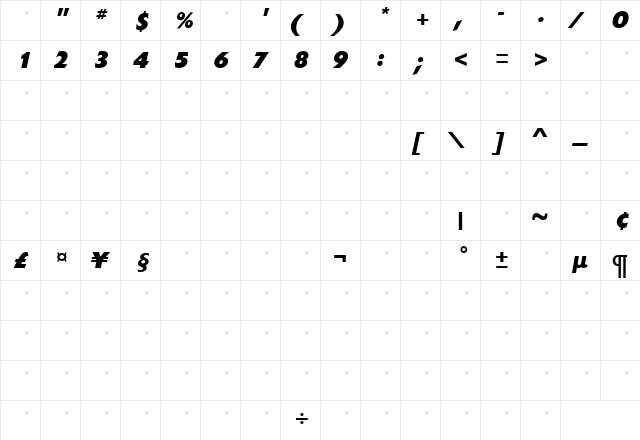
ExtensionExtraBoldItalicTab Roman Font Preview
Design Context for ExtensionExtraBoldItalicTab Typeface
ExtensionExtraBoldItalicTab offers clean, dependable letterforms without strong stylistic allegiance, making it a practical choice for designers who need flexibility. The slanted form adds forward momentum and visual energy. Its bold stroke weight gives it real presence on the page.
Pro Tip: Try ExtensionExtraBoldItalicTab for annotation and caption copy alongside an upright companion — the contrast in angle creates a dynamic but ordered typographic system.